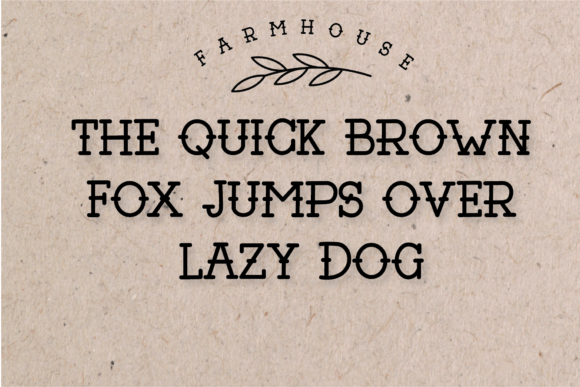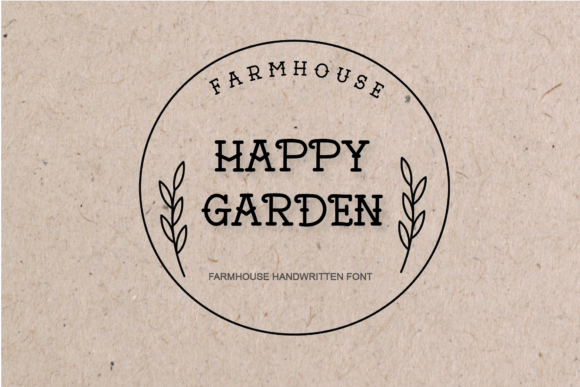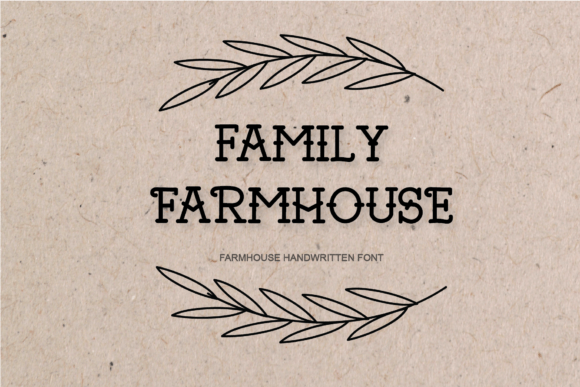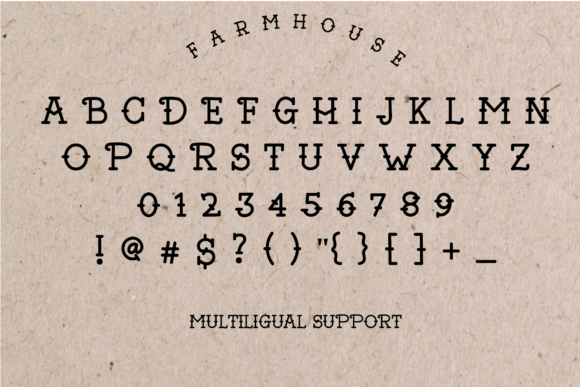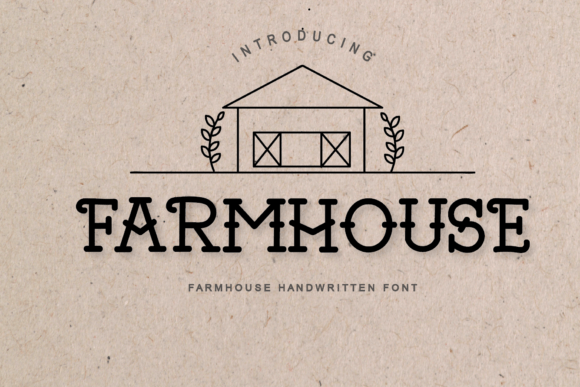
Introducing Farmhouse Font: Elevate Your Designs with Elegance and Sophistication
In the world of typography, a well-crafted font can make all the difference in elevating your designs to the next level. If you’re a designer, crafter, or simply someone who appreciates beautiful typography, you’re in luck. Say hello to Farmhouse Font, a stunning typeface that exudes luxury and sophistication. In this article, we’ll dive into the world of Farmhouse Font, exploring its features, uses, and benefits, and why it’s a must-have for any creative looking to add a touch of elegance to their work.
Farmhouse Font is a meticulously designed typeface that boasts a luxurious and refined aesthetic. Its elegant curves, precise lines, and classic proportions make it an ideal choice for a wide range of design applications. Whether you’re working on packaging designs, fashion themes, fragrance designs, cosmetic designs, or social posts, Farmhouse Font is the perfect companion to help you achieve your creative vision.
So, what sets Farmhouse Font apart from other typefaces? Here are some of its key features:
• Elegant and Refined: Farmhouse Font’s sophisticated design makes it perfect for high-end branding, packaging, and advertising.
• Versatile: Its classic proportions and clean lines ensure that it works beautifully across various design applications.
• Legible: The font’s clear and precise lines make it easy to read, even at smaller sizes.
• High-Quality: Farmhouse Font is crafted with attention to detail, ensuring a high-quality finish that will elevate your designs.
Uses of Farmhouse Font
Farmhouse Font’s versatility is one of its greatest strengths. Here are some of the many ways you can use this beautiful typeface:
• Packaging Designs: Add a touch of luxury to your product packaging with Farmhouse Font.
• Fashion Themes: Use Farmhouse Font to create stunning fashion branding, from logos to marketing materials.
• Fragrance Designs: Elevate your perfume or fragrance branding with this elegant typeface.
• Cosmetic Designs: Add a touch of sophistication to your cosmetic branding and packaging.
• Social Posts: Use Farmhouse Font to create eye-catching social media posts that stand out from the crowd.
Benefits of Using Farmhouse Font
So, why should you choose Farmhouse Font for your design projects? Here are just a few benefits:
• Instant Credibility: Farmhouse Font’s luxurious aesthetic instantly elevates your designs, giving them a high-end feel.
• Versatility: This typeface works beautifully across various design applications, making it a valuable addition to your font library.
• Easy to Read: Farmhouse Font’s clear and precise lines ensure that your message is communicated clearly.
• Unique Edge: Stand out from the crowd with Farmhouse Font’s distinctive and elegant design.
In conclusion, Farmhouse Font is a stunning typeface that is sure to elevate your designs to new heights. Its elegant and refined aesthetic, versatility, and legibility make it a must-have for any designer, crafter, or creative looking to add a touch of luxury to their work. Whether you’re working on packaging designs, fashion themes, fragrance designs, cosmetic designs, or social posts, Farmhouse Font is the perfect companion to help you achieve your creative vision. So why wait? Use Farmhouse Font with confidence in your creations and get ready to see amazing results!